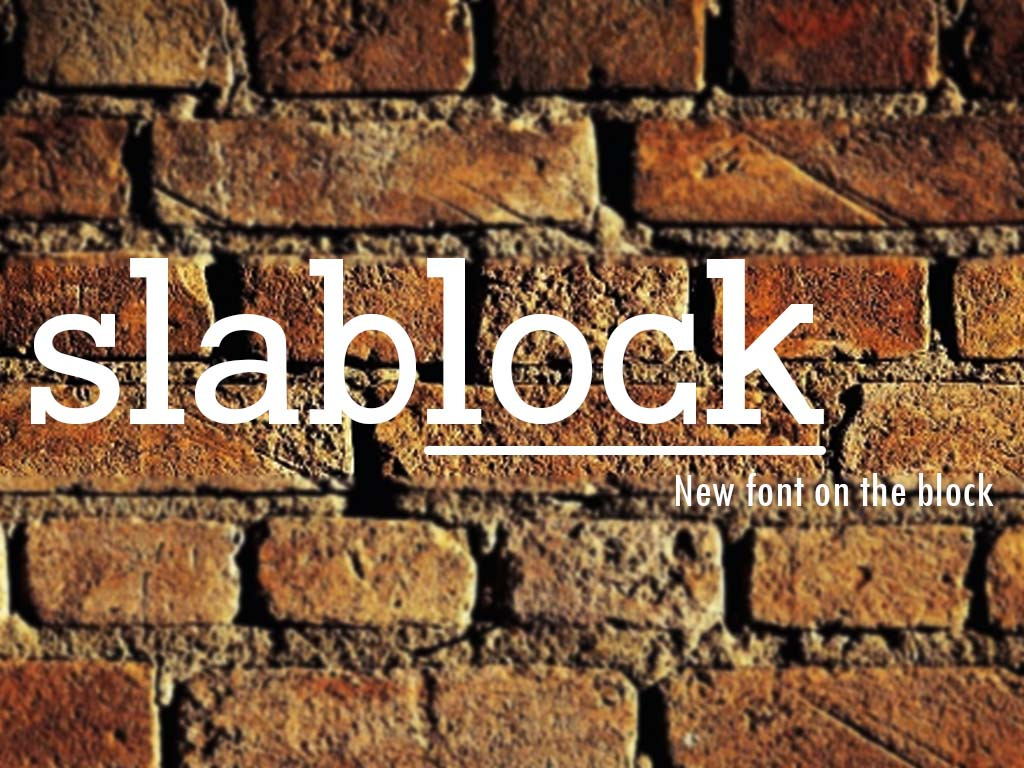
slablock - new style slab font
Slablock is a new font Style from Fontoloyo, its a new style slab font for your concept, basic with serif & you got font like style in other country.